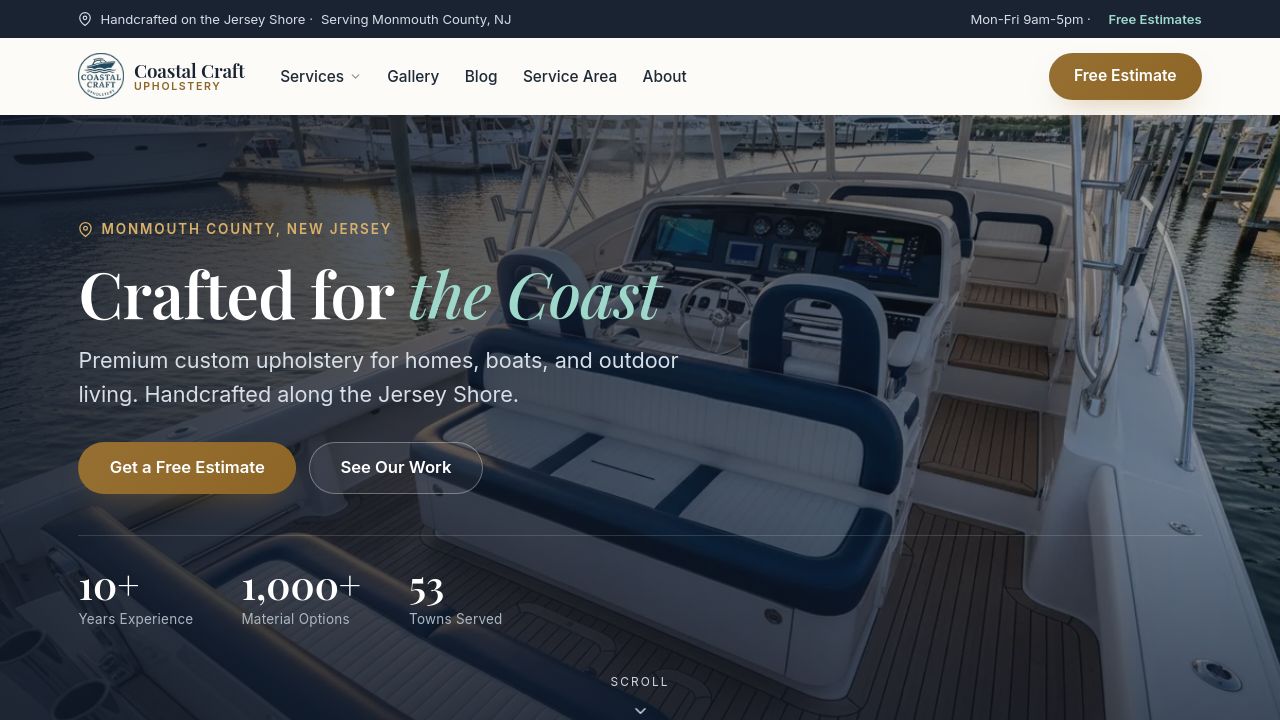
What fonts does Coastalcraftupholstery use?
Coastal Craft Upholstery showcases its commitment to craftsmanship and quality through its careful selection of fonts. The use of Inter, with its clean and versatile design, communicates clarity and functionality, making it ideal for upholstery services. Meanwhile, Playfair Display adds a touch of sophistication and a nod to traditional craftsmanship, appealing to an audience that values both modernity and heritage in their furniture restoration needs. Together, these fonts create a cohesive visual identity that reflects the brand's dedication to excellence.
Frequently asked questions about Coastalcraftupholstery.com's fonts
What fonts are used on coastalcraftupholstery.com?
The primary fonts used on coastalcraftupholstery.com are Inter and Playfair Display. Inter is utilized in weights 400 and 700, while Playfair Display is featured in weights 400 and 800.
How does Inter compare to other sans-serif fonts?
Inter is known for its legibility and modern aesthetic, making it ideal for digital interfaces. Compared to other sans-serif fonts, it offers excellent readability at various sizes, ensuring clarity in communication.
What styles and weights are available for Playfair Display?
Playfair Display is available in multiple styles, with weights ranging from 400 to 800. This variety allows for flexibility in design, making it suitable for both headings and body text.